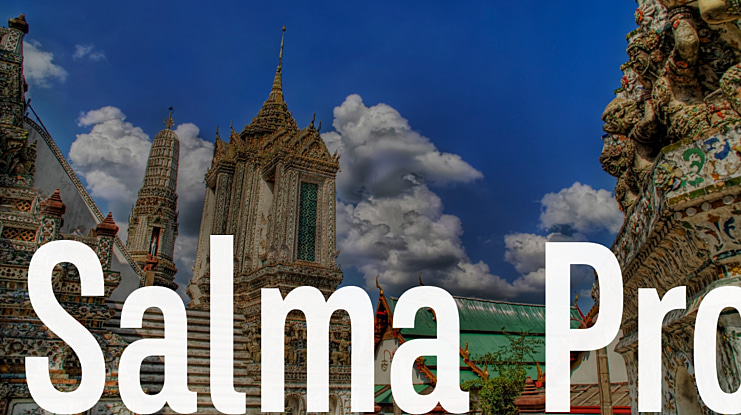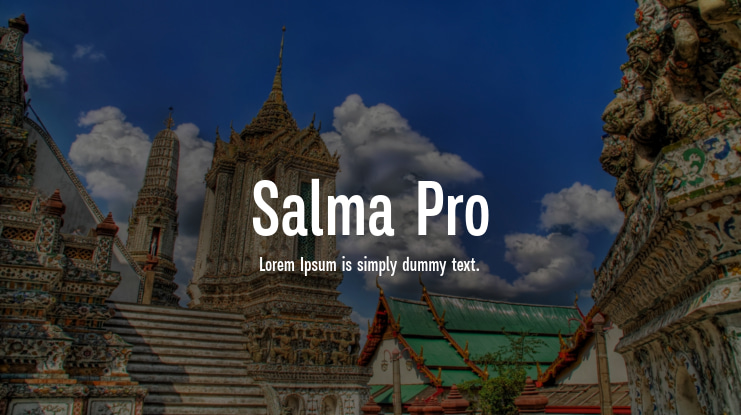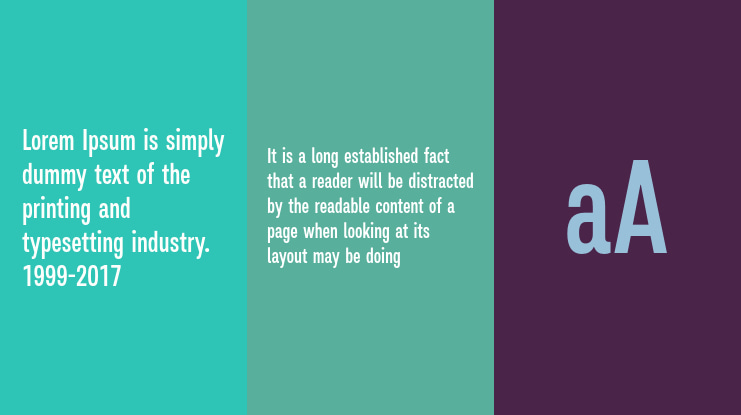
Typeface Story
Introducing Salma Pro, a modern and sleek sans-serif font that boasts a new design and a strong character. As the successor of the previous version (Salma Alfasans), Salma Pro is an extended version that offers an abundance of features, good legibility, and a wide range of styles, making it perfect for any project.
Crafted with great passion and conscientiousness, Salma Pro's unique design is a work of art. You will see beautiful details in every letter, making it perfect for branding, logos, and other design projects. Whether you're using it for headlines or body text, Salma Pro's good legibility ensures that it looks great at any size.
Why you need Salma Pro in your font collection:
Versatility: With 1400+ glyphs and three different widths to choose from, Salma Pro offers a wide range of styles and features, making it the perfect choice for any project.
Reliability: This font is designed specifically for professional designers and offers superior functionality and quality. You can trust Salma Pro to deliver consistent and high-quality results. More...
Unique Design: Salma Pro has a unique and authentic design that will make your work stand out. It's perfect for branding, logos, and other design projects.
Good legibility: The font is designed to be highly legible, both at large and small sizes, making it a great choice for both headlines and body text.
Language support: Salma Pro supports Latin Extended, Cyrillic, and Greek languages, making it a great choice for projects with a global audience.
Multipurpose: It can be used for various purposes such as branding project, logo or logotype, promotion, e-pub, website, mobile app, and many more.
Time-saving: With its abundance of features and styles, Salma Pro will save you time and make your job easier.
Compatibility: Salma Pro is very compatible when used as a logo and branding projects. Because it has beautiful and authentic details.
Passion and conscientiousness: Salma Pro is created with great passion and conscientiousness, giving you the best design result.
In conclusion, Salma Pro is a must-have font for professional designers. Its versatility, reliability, unique design, and wide range of features make it an essential tool for any designer.
Features:
- Small capitals
- Tabular and proportional lining figures
- Tabular and proportional oldstyle figures
- Scientific inferior and superior characters
- Numerator, denominator, and fraction characters
- Circled and squared numbers
- Standard and discretionary ligatures
- Arrows, triangles, squares, and circles symbols
- 16 stylistic sets
- Contextual alternates
- Slashed zero
- And many more advanced typography features.
Language Support: Salma Pro supports Latin Extended (including Vietnamese), Cyrillic, and Greek.
Suggested Uses: Salma Pro is ideal for branding projects, logos and logotypes, promotions, e-books, websites, mobile applications, and more. This versatile font can be used in a wide range of projects to elevate your designs and make your work stand out.